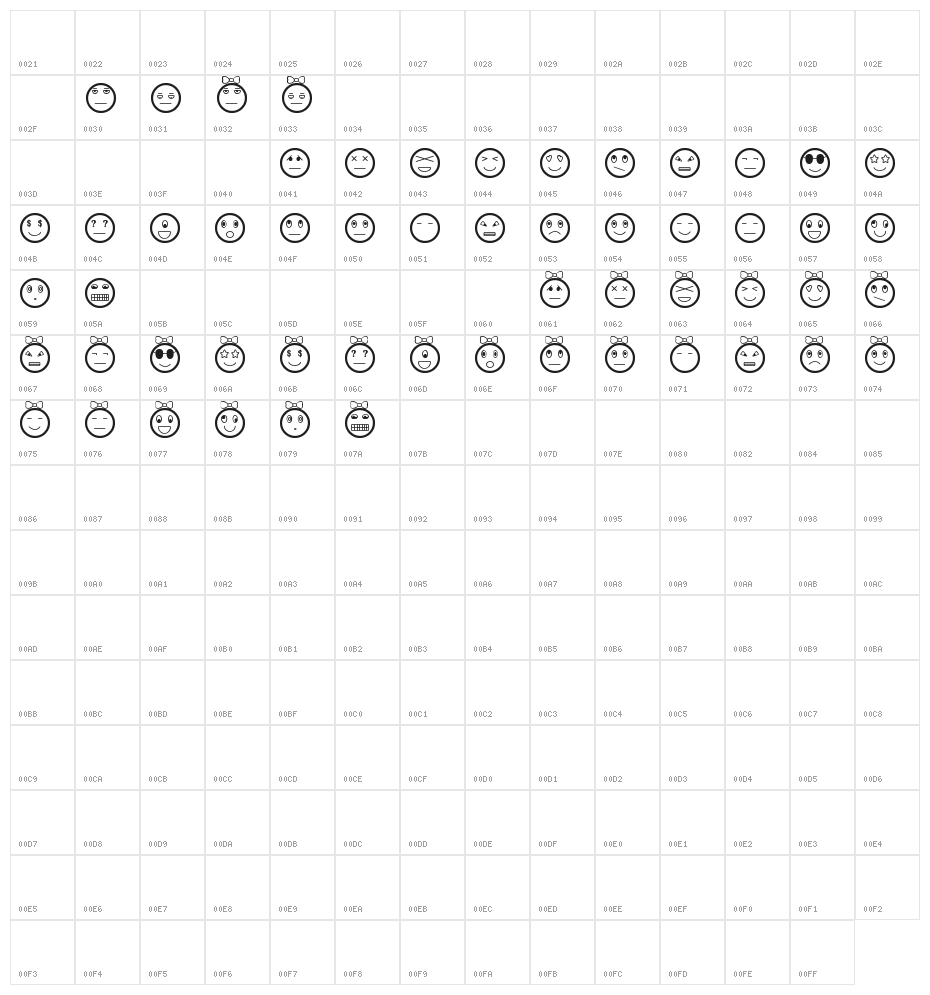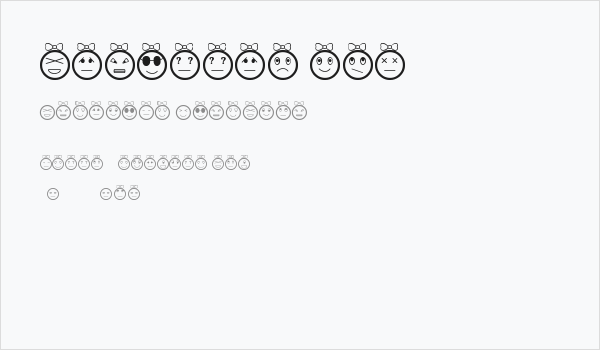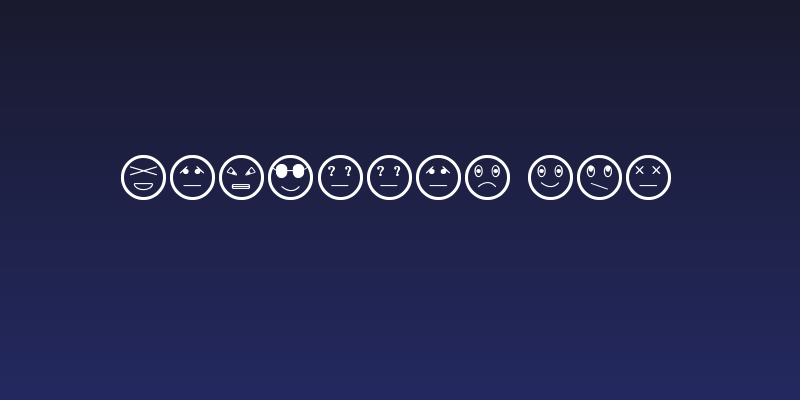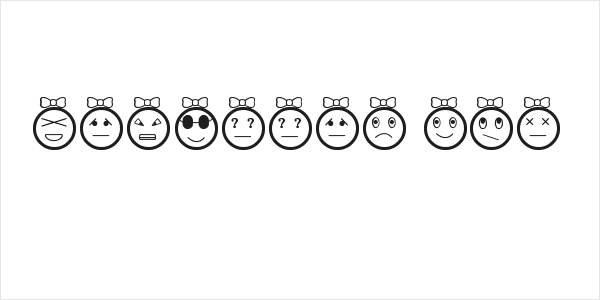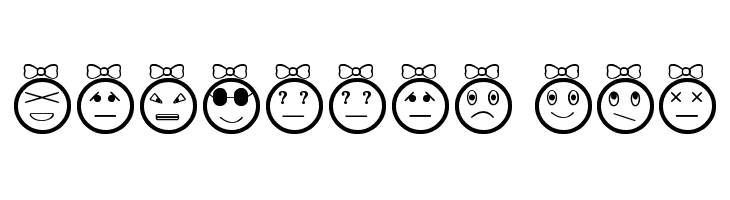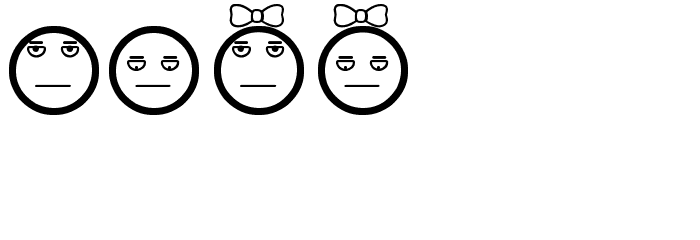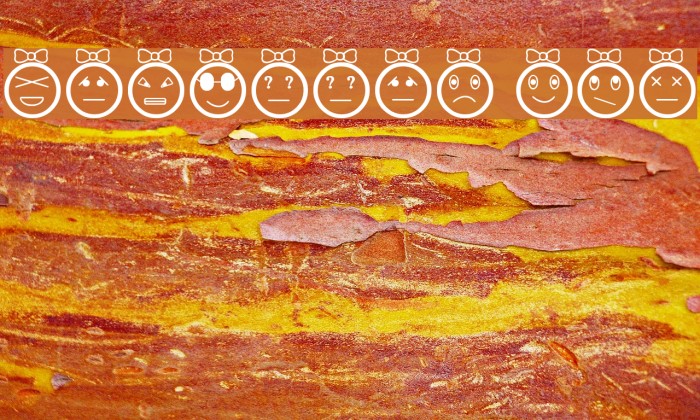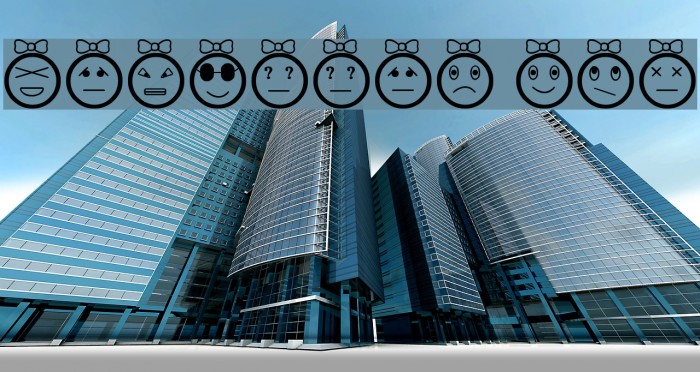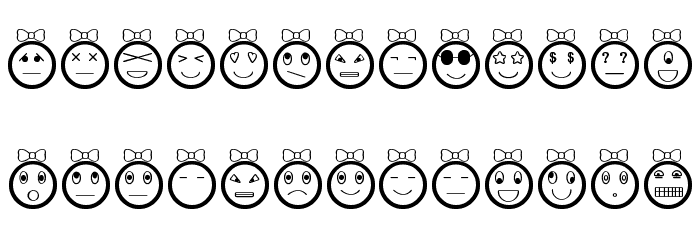
carillas tfb Font
carillas tfb Description
This collection features a playful and expressive set of emoji-like faces, each encapsulated within a bold circular outline. The faces display a wide range of emotions, from joy and surprise to confusion and indifference. Some faces are adorned with accessories like sunglasses or bows, adding a whimsical touch. The bold outlines and simple facial features make each expression easily recognizable and impactful. This set is ideal for adding a fun and lighthearted element to any project, with its clear and engaging design.
| Overall Style | Playful, Whimsical |
| Use Case | Icons, Emojis, Decorative elements |
| Proposed Projects | Ideal for use in digital communications, social media graphics, children's books, or any project requiring expressive and engaging visual elements. |